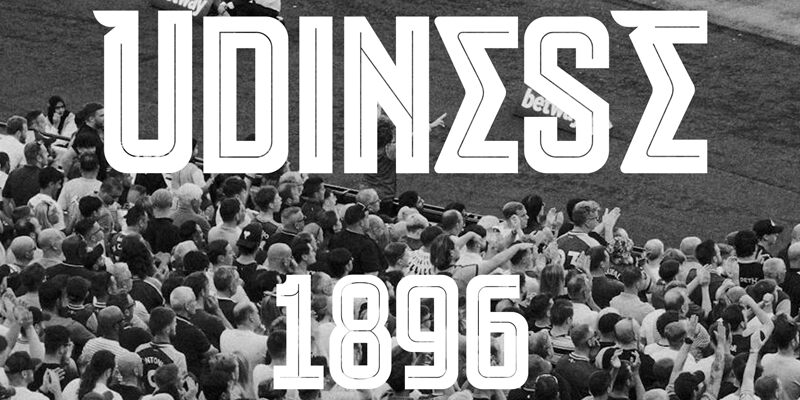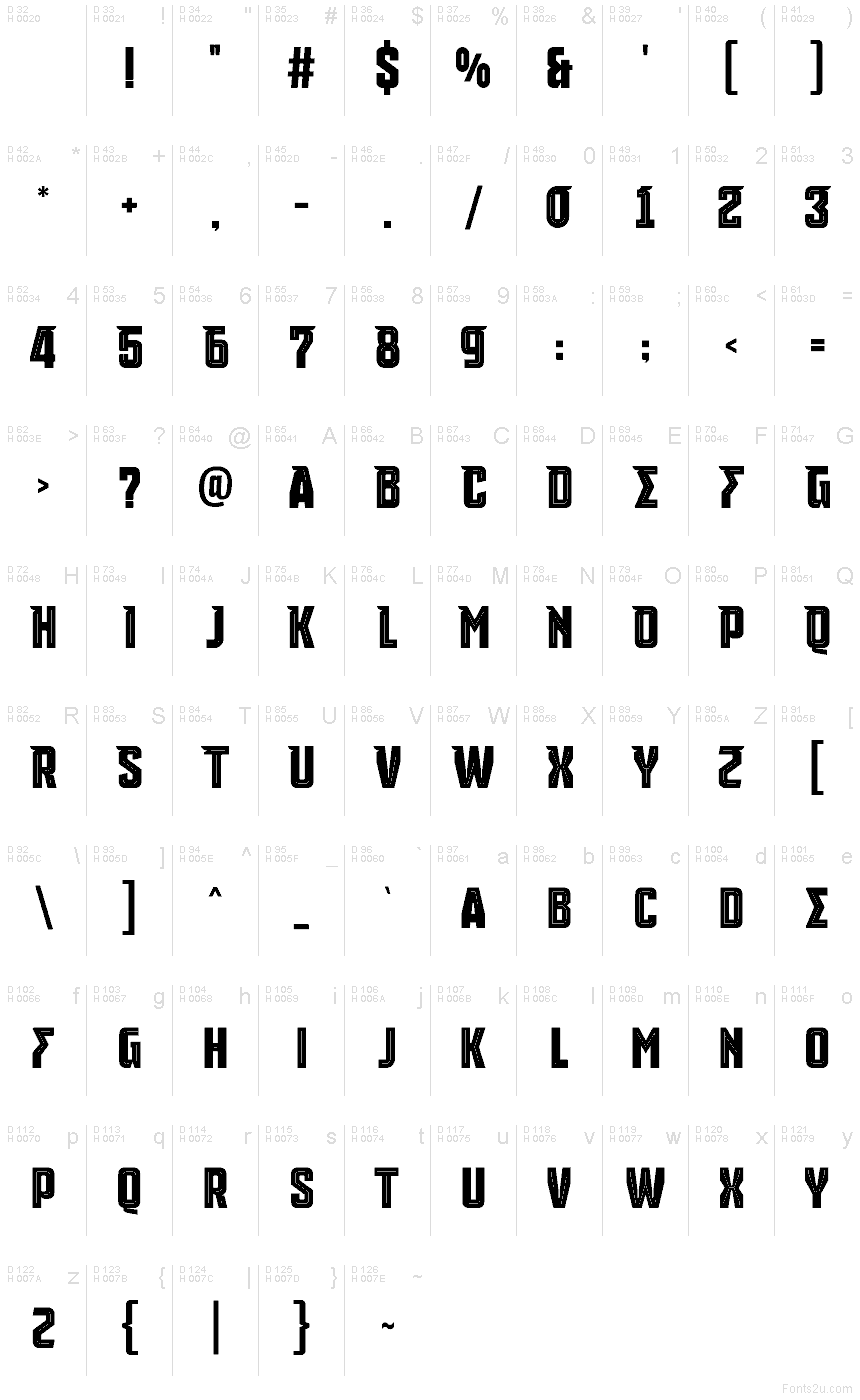
Udinese Inline Personal Use
Udinese Inline font by Trequartista Studio is a bold, condensed display font that has a futuristic, geometric, angular appearance. With high-tech and modern inspirations, it offers aggressive aesthetics with bold outlines and sharp angles which give this typeface its identifiable look.
Adding value to your projects as the final touch to them, use the free Udinese Inline for posters (movies or sports), video game designs and covers, titles for comics or magazines (health/fitness), branding projects (logo design), advertisements and signage designs.